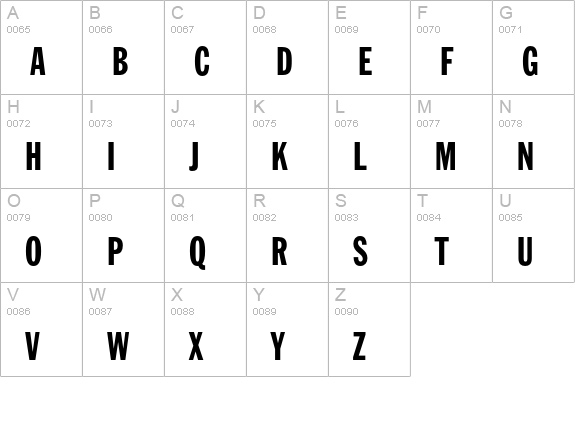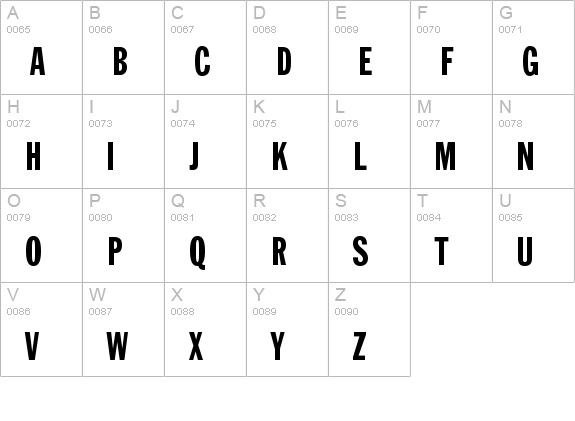
Franklin Gothic Std Extra Condensed Font Details
Franklin Gothic Std Extra Condensed is a distinctive, condensed-width variant in the Franklin typeface family \xE2\x80\x94 well suited to design and typography projects.
Franklin Gothic Std Extra Condensed font is a sleek and modern typeface that exudes sophistication and elegance. With its condensed design, this font is perfect for creating a bold and impactful visual presence in any design project. The sharp, clean lines of Franklin Gothic Std Extra Condensed make it ideal for headlines, titles, and other display purposes. This versatile font is suitable for a wide range of applications, from branding and advertising to editorial design and packaging. Its timeless aesthetic ensures that it will remain relevant and eye-catching for years to come. Whether you're looking to add a touch of professionalism to your project or make a statement with your typography, Franklin Gothic Std Extra Condensed is sure to deliver. Best of all, Franklin Gothic Std Extra Condensed is available for free download at FontsMarket.com. This means you can easily access this premium font without breaking the bank. Don't miss out on the opportunity to enhance your designs with the bold and stylish Franklin Gothic Std Extra Condensed font today!